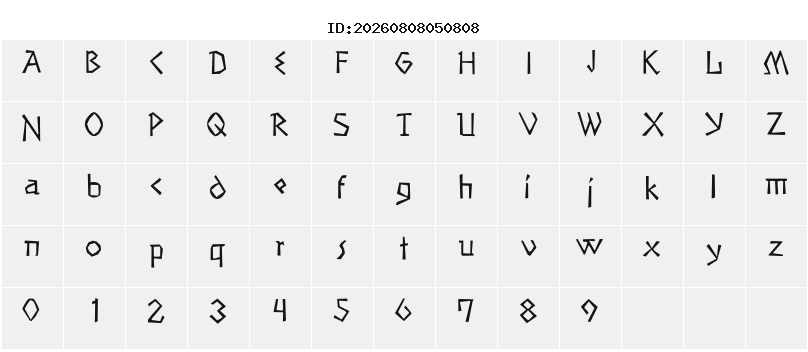
Primeval.ttf is a modern, elegant sans-serif font designed for ultimate readability and visual harmony. Perfect for branding, headlines, web design, and print materials.